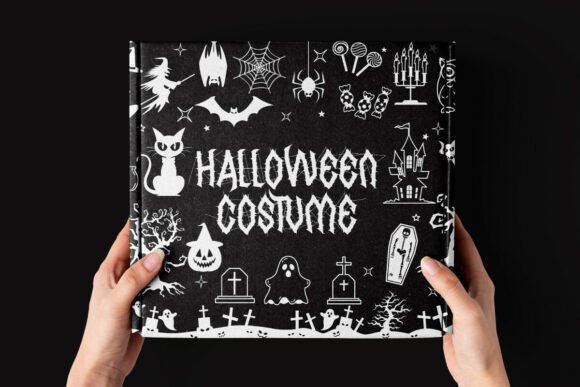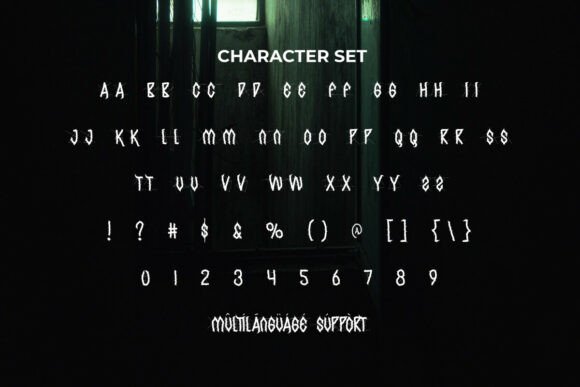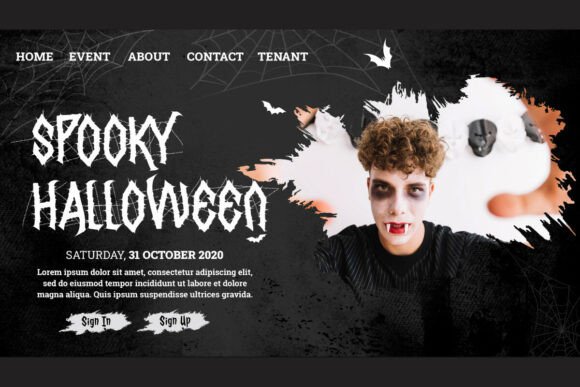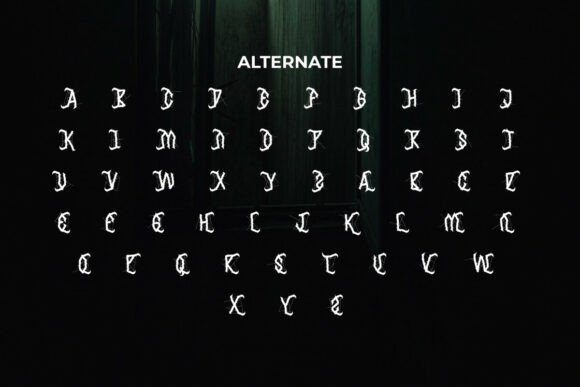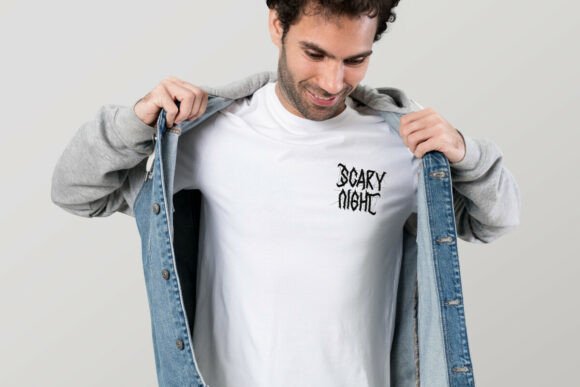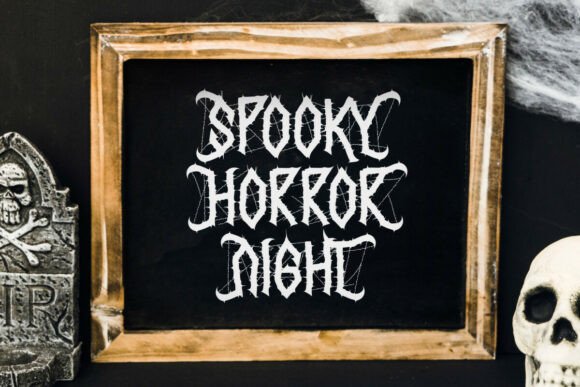
Introduction to Psychodrama Font
Psycho Drama is a bold horror display font that captures chaos, intensity, and raw emotion in every letter.
Its jagged edges, distressed textures, and irregular strokes create an unsettling yet captivating atmosphere Perfectly embodying fear and suspense, this font feels alive with dark energy — ideal for projects that want to stand out with a gritty and psychological edge.
Key Features of Psychodrama Font
Why Choose Psychodrama Font?